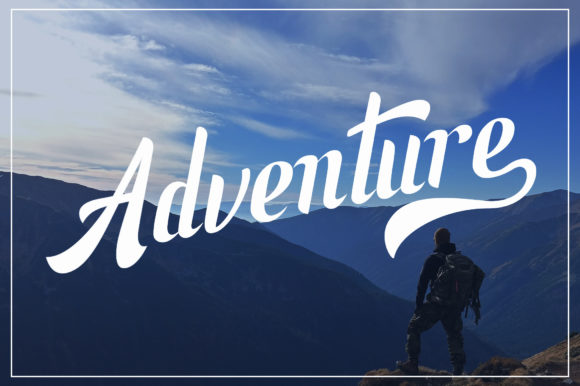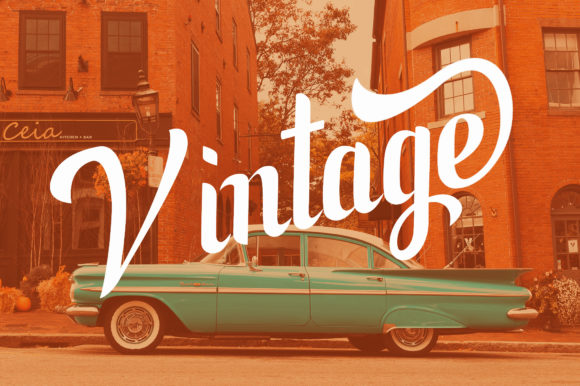
Hobby Font
db-ku.com - Script & Handwritten -- Hobby is a modern and beautiful customized font. This font is perfect for banners, product packaging, news headlines, magazines and other creative projects. Hobby is PUA encoded which means you can access all of the glyphs and swashes with ease!